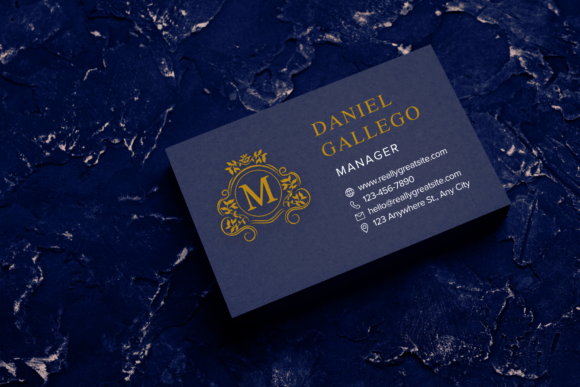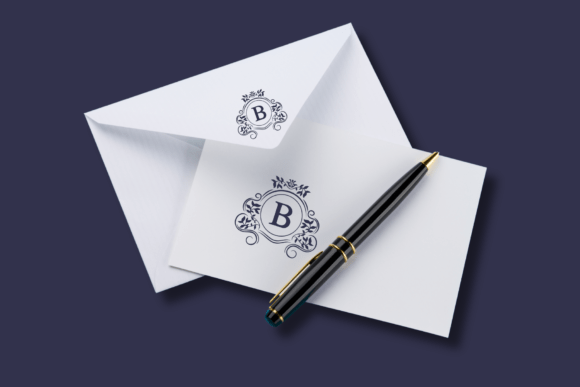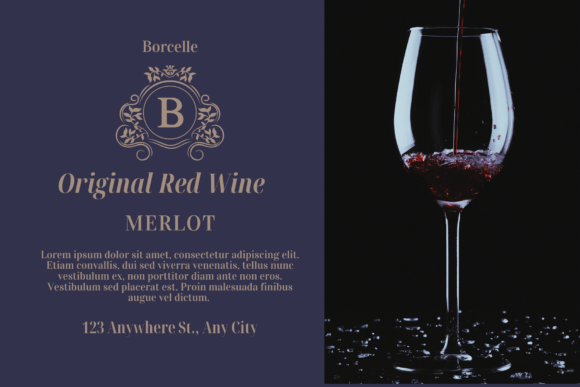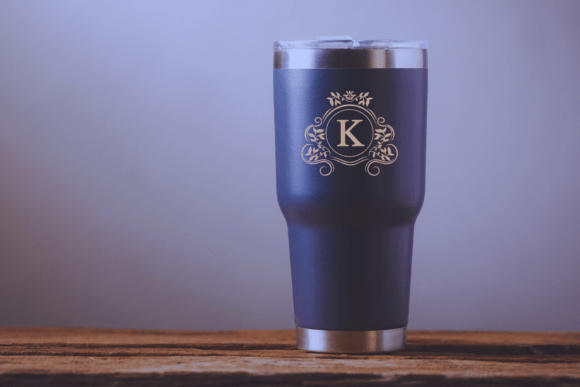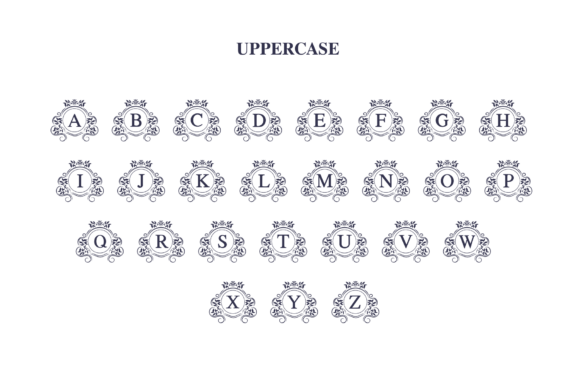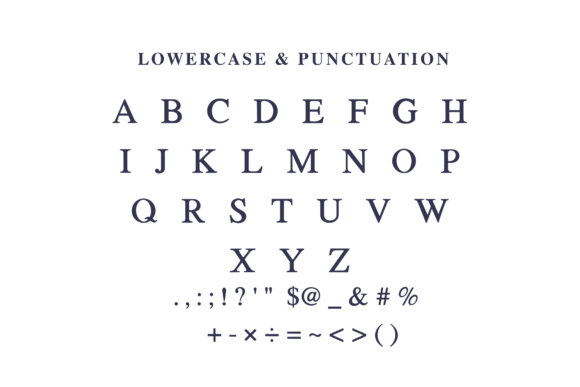
Introduction to Luxury Monogram Font
As a designer, there’s nothing quite like the thrill of creating something new and special. I still remember the moment when I stumbled upon the perfect combination of letters to create a stunning monogram. It was like a lightbulb moment – the design just came together, and I knew I had to share it with the world. That’s how Luxury Monogram Font was born, a beautiful serif font that exudes elegance and sophistication.
Whether you’re working on a high-end branding project, a wedding invitation, or a luxury blog, Luxury Monogram Font is the perfect design resource to elevate your creative project. With its high-quality design and transparent background, this font is a must-have for any designer looking to add a touch of luxury to their work.
Key Features of Luxury Monogram Font
- Unique, elegant design perfect for high-end creative projects and design resources.
- High-quality font with a transparent background, ideal for use on logos, invitations, and other design elements.
- Customizable with various monogram styles and layouts, allowing for a personalized touch in your design.
- Perfect for designers, artists, and small business owners looking to add a touch of luxury to their branding and creative projects.
Honest Review: Luxury Monogram Font
As a designer, I’m always on the lookout for high-quality design resources to elevate my creative projects. The Luxury Monogram Font is one such resource that caught my attention. With its elegant and sophisticated design, this font is perfect for luxury branding, invitations, and other high-end materials.
- ✨ High-quality design that exudes luxury and sophistication.
- ✨ Transparent background, allowing for seamless integration with other design elements.
- ⚠️ Limited character set, which may not be suitable for longer text-based projects.
- ⚠️ May not be suitable for digital displays, as the font may not scale well.
Overall, I’m impressed with the Luxury Monogram Font’s design and versatility. While it may have some limitations, it’s an excellent resource for designers working on high-end creative projects. With its free download and transparent background, it’s definitely worth considering for your next design project.
How to Use Luxury Monogram Font
Designing with Luxury Monogram Font
To get the most out of the Luxury Monogram Font, use it on a transparent background to give your design a clean and elegant look. You can also experiment with different font sizes and combinations to create a unique visual effect.
The Luxury Monogram Font is ideal for use in branding materials, such as business cards, letterheads, and logos. It can also be used in wedding invitations, event graphics, and other creative projects where a touch of luxury is desired.